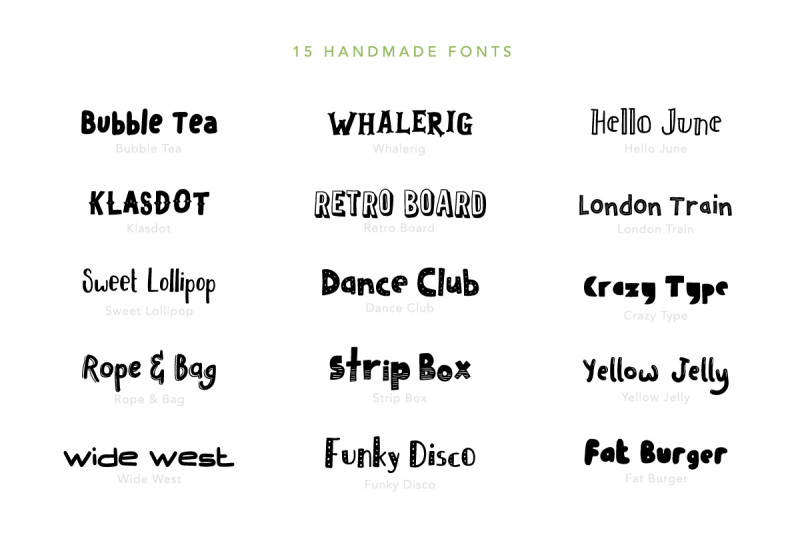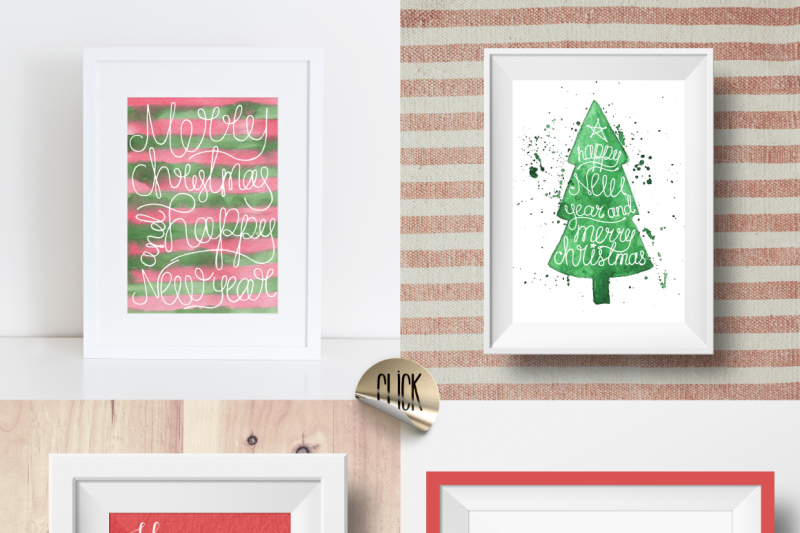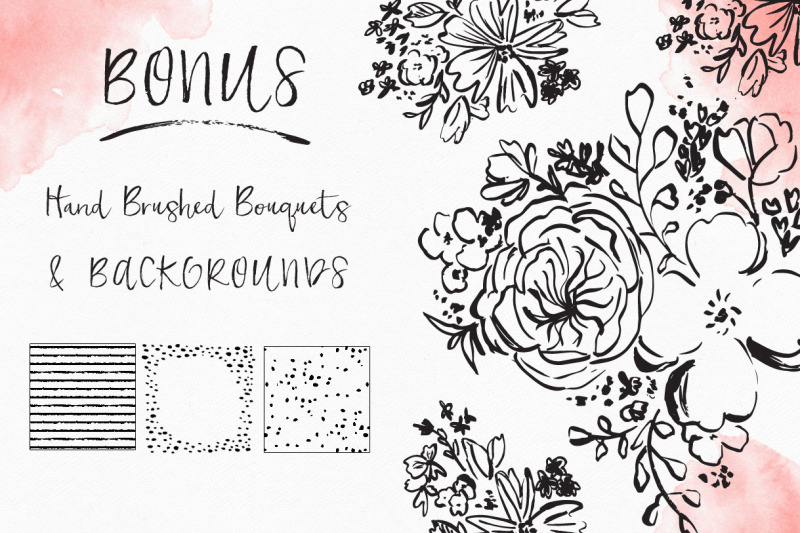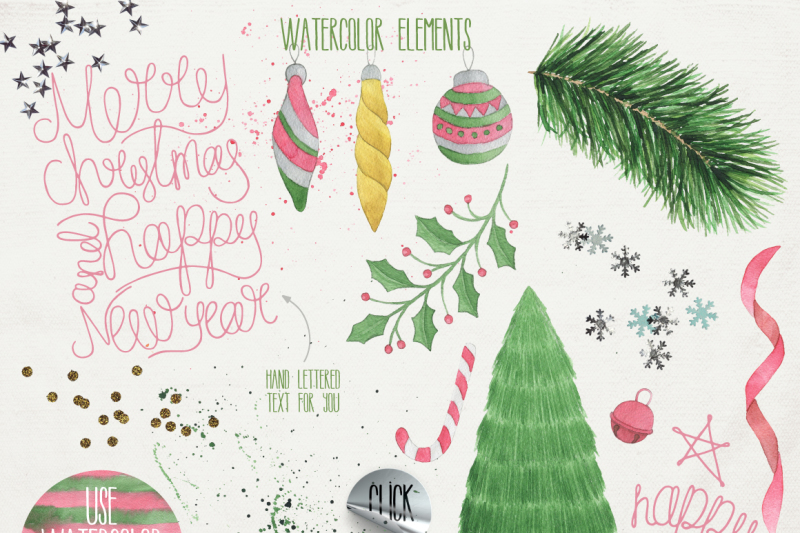
Included in this bundle
1. Handtype Toolkit (15 Fonts) by Vuuuds
This bumper pack of typefaces includes 15, yes FIFTEEN individual fonts for you to mix and match in your designs. There are so many to choose from that the possibilities are endless. Created to compliment each other, they really work as a team! Which one is your favorite?
2. Sweetness Script by Seniors Studio
How cute is this new typeface by Seniors Studio!? So sweet it's making our teeth hurt! So much fun to use and adorable in every way, this font comes with lots of alternate characters that are accessible without the need for additional design software due to them being PUA encoded.
3. Frolicky by Angie Makes
Not only is this script so striking, but it comes with extras too! It really says 'stop and look at me' which is wonderful as we love a good show-off font! All of the additional swashes, alternate letters and extras can be accessed by using the files included. We love the bonus bouquets and patterns!
4. Merry Christmas Fonts (2 Fonts) by Julia Dreams
This Merry Christmas font pack by Julia Dreams is super versatile and comes with swashes, alternate caps and some incredible watercolor, holiday-themed drawings! (The gingerbread man is adorable!) There is also a bonus font called Happy New Year, a straighter, bolder font  that compliments the main font perfectly.
5. Melika Script by JROH Creative
Melika is a stunning script font that it jam-packed full of alternate characters and swashes galore! All fully accessible through the additional files included. Mix and match to create your desired look.